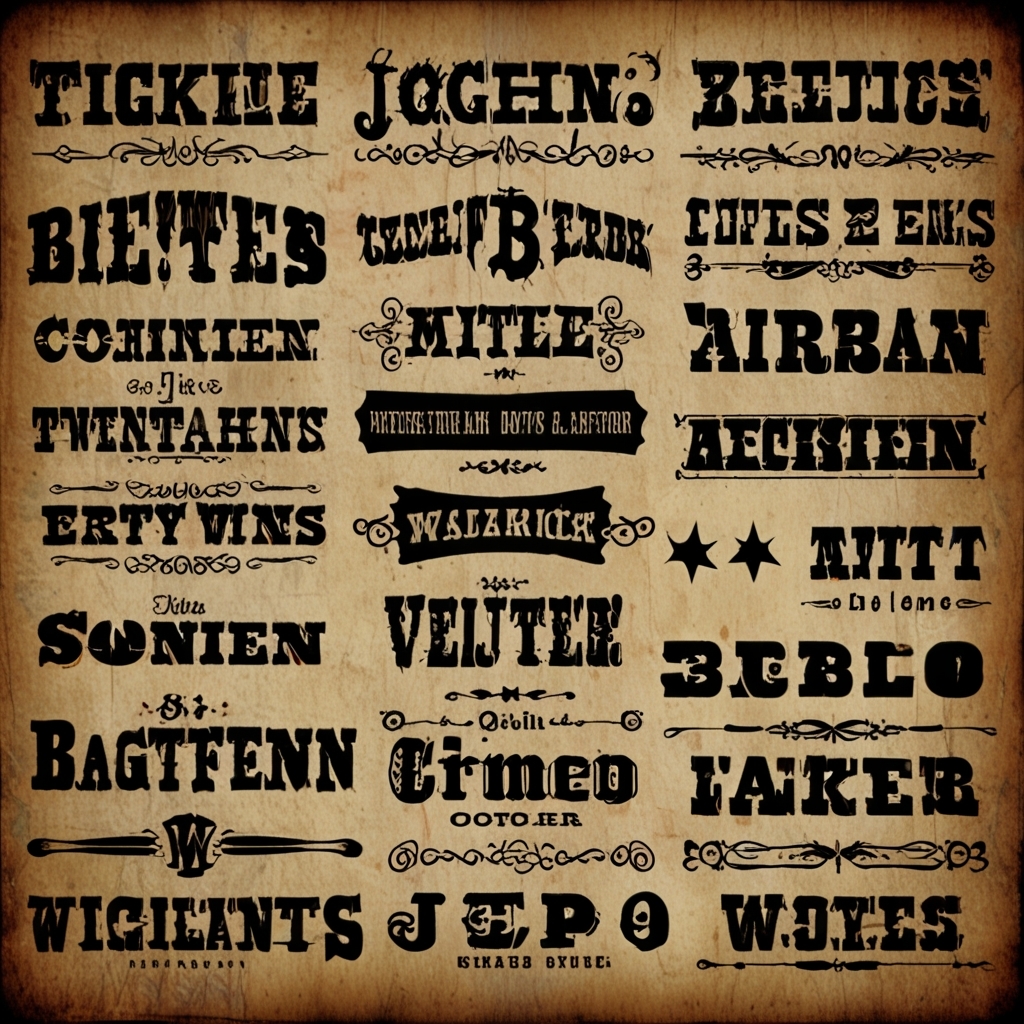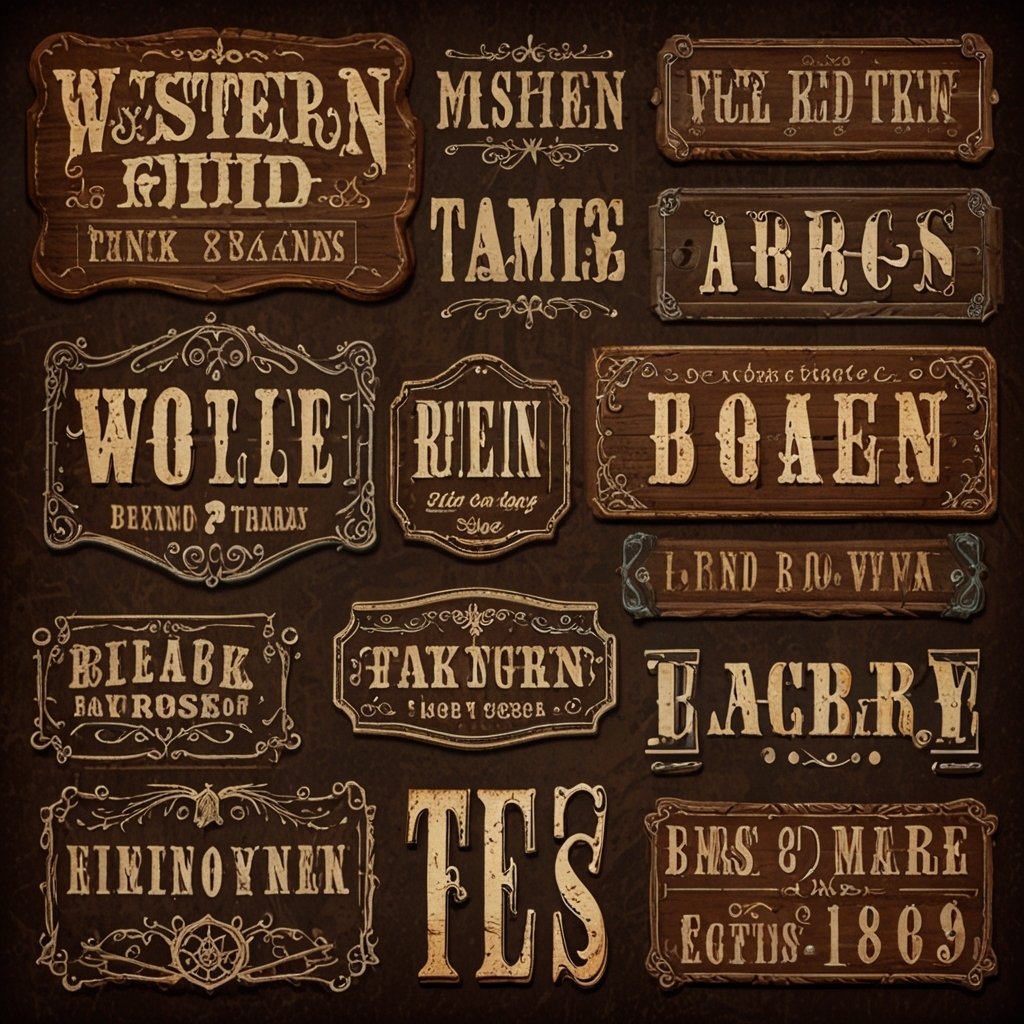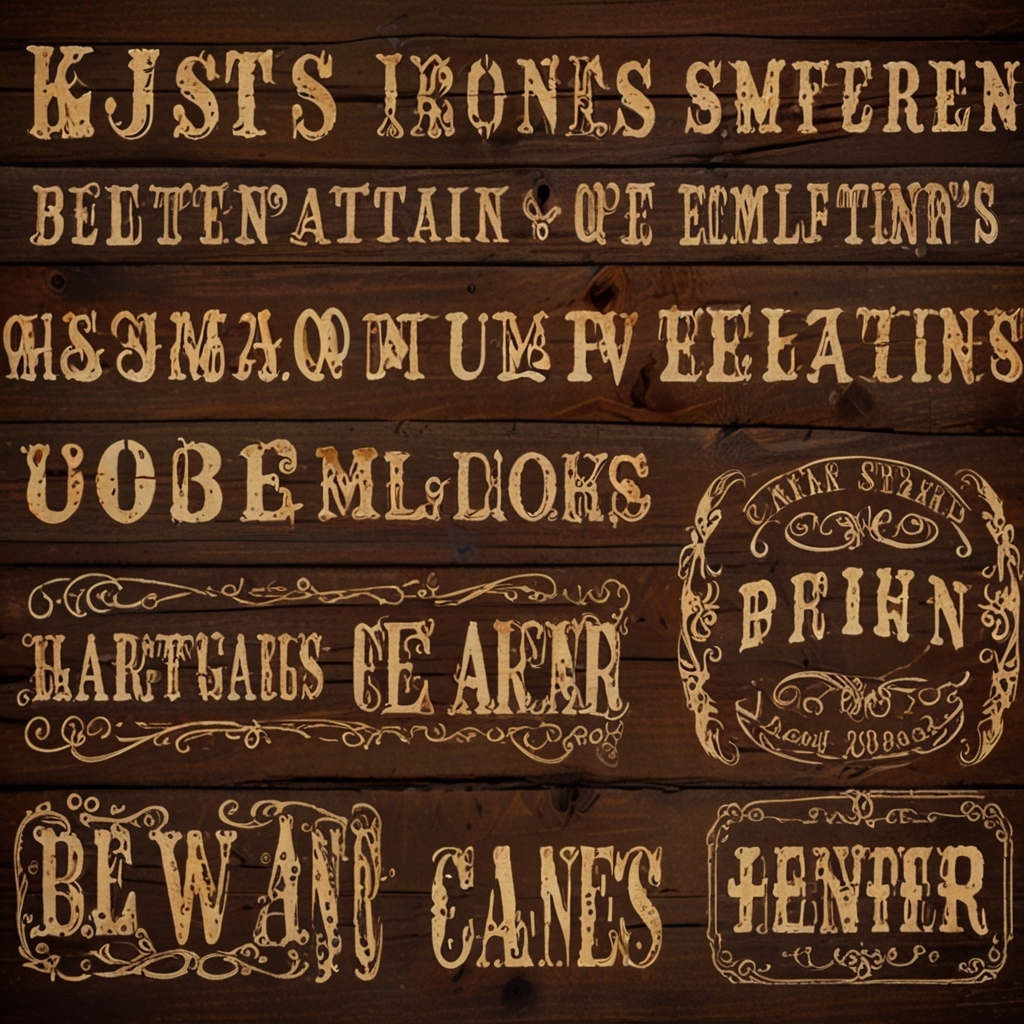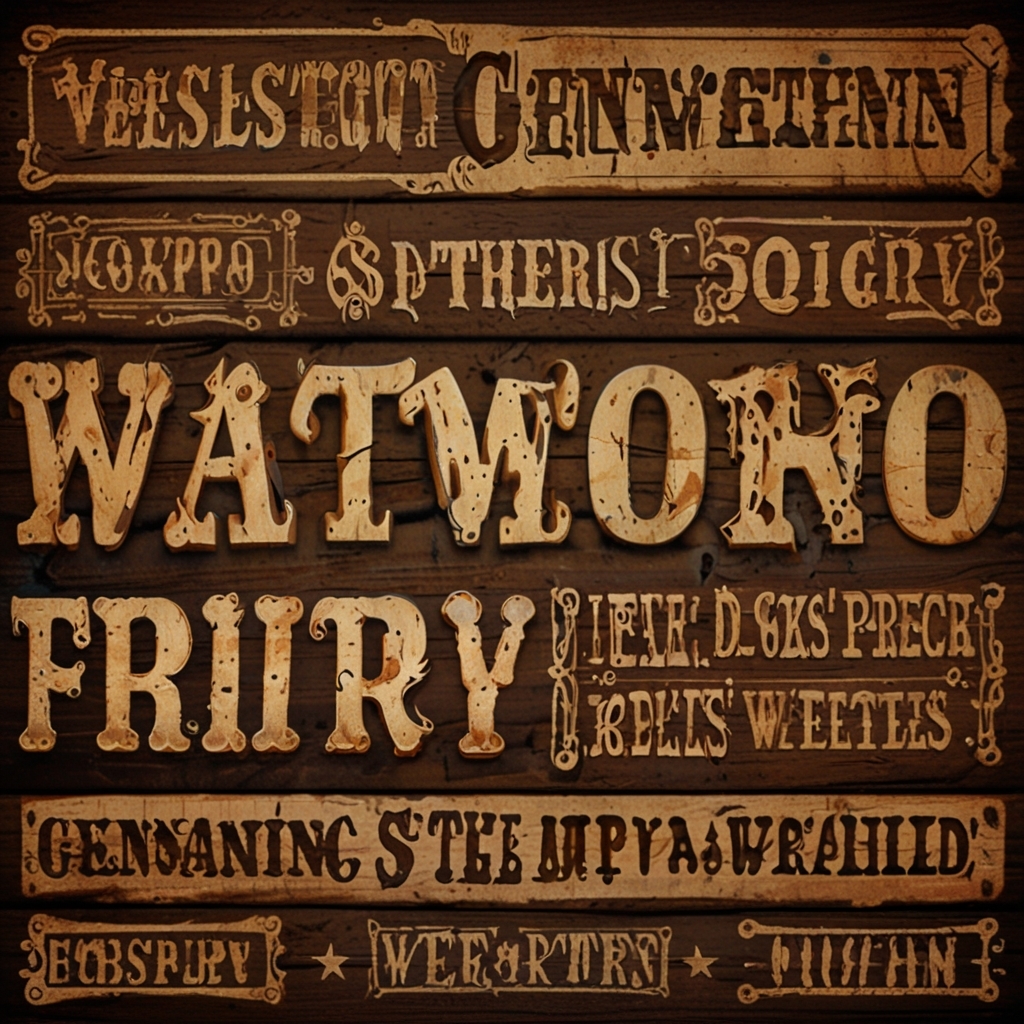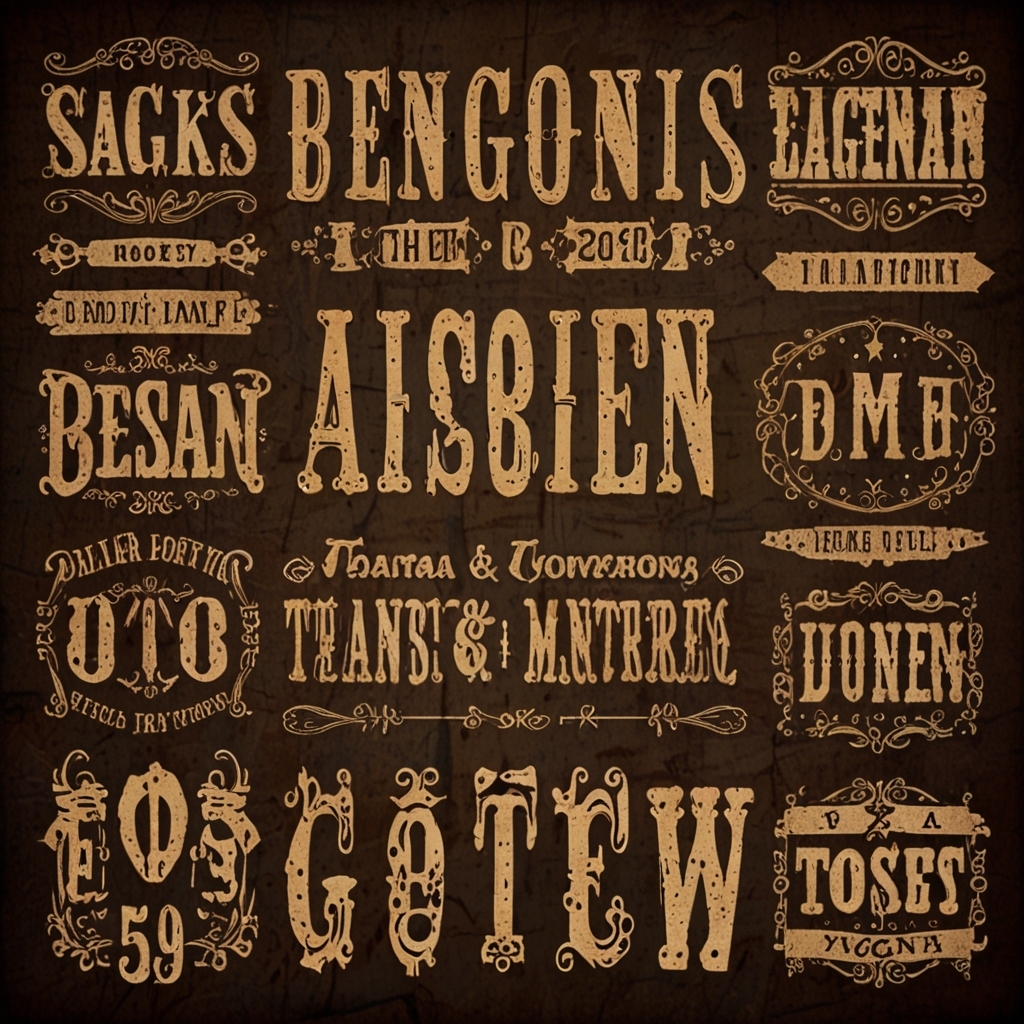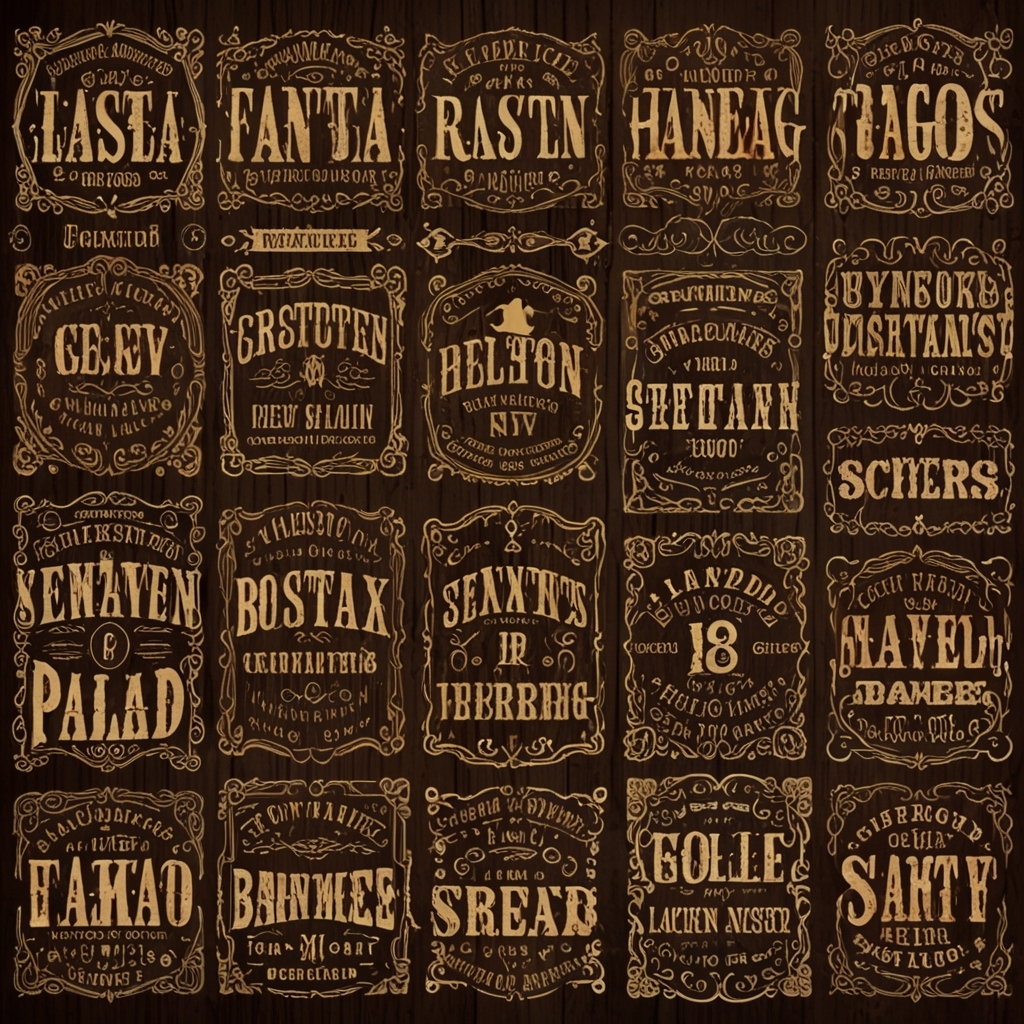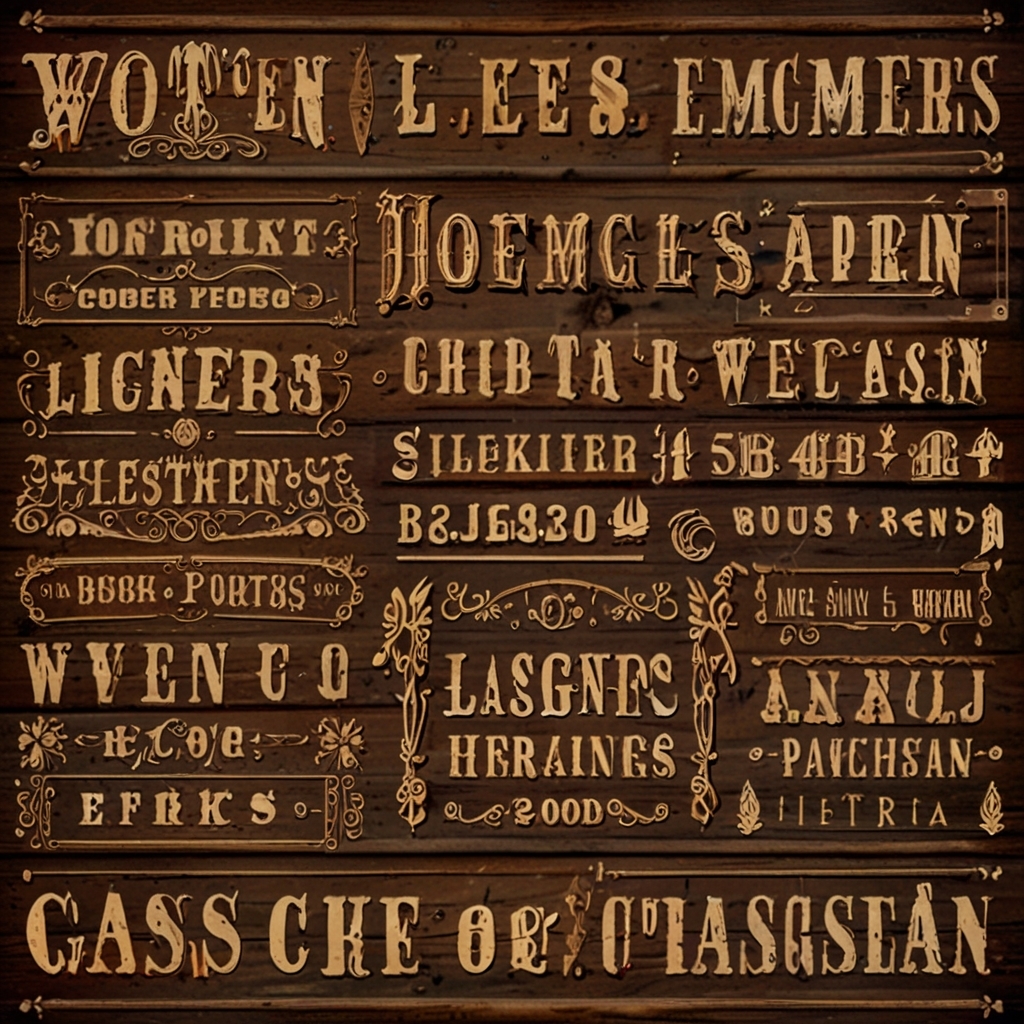
Our Western Fonts collection is a captivating journey through the rustic charm of the Old West. Each font is meticulously crafted to evoke the rugged beauty and timeless appeal of classic cowboy tales. Imagine your designs lassoed with the unique flair of frontier lettering, adding a distinctive edge to every project. Whether you're designing posters, creating invitations, or adding a vintage touch to your digital art, these fonts provide an authentic splash of Western aesthetic. With their bold characters and textured edges, they carry the scent of adventure, as if dusted with the spirit of the American frontier. Let your creative projects stand out as they gallop across the vast digital plains, leaving a trail of cowboy elegance that’s hard to forget. Rediscover the wild, untamed allure of the West with every stroke and curve of our Western Fonts.